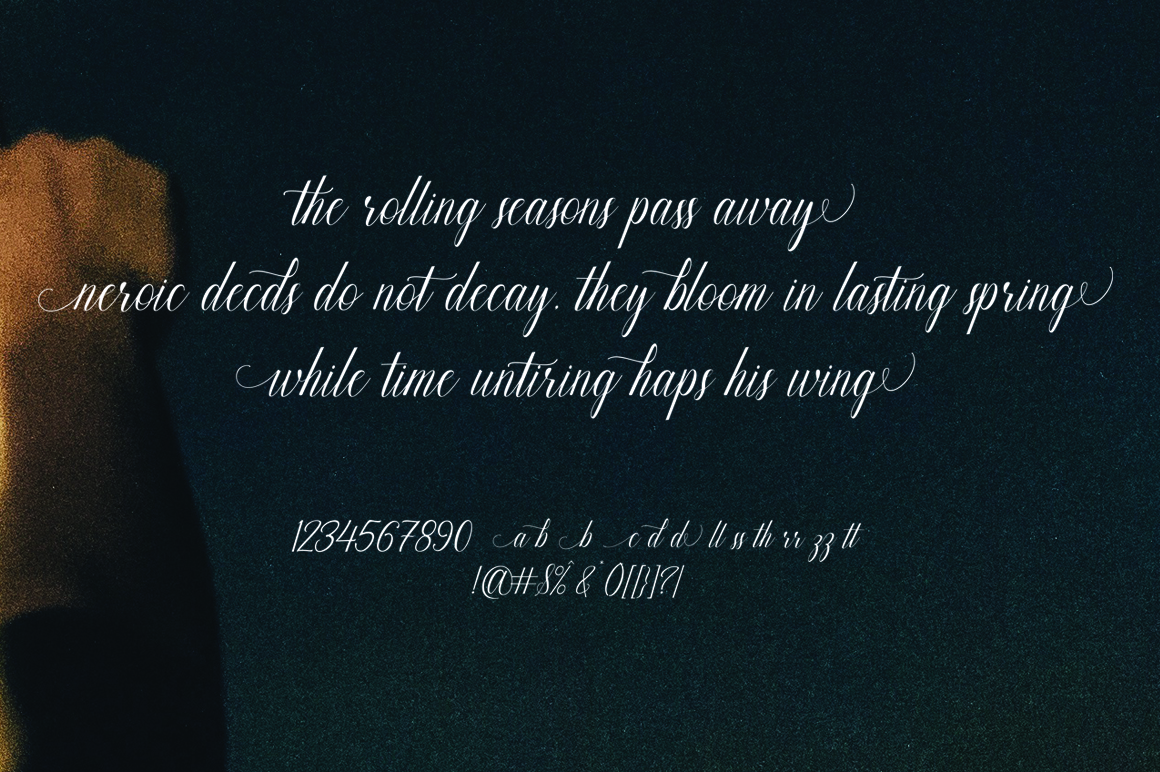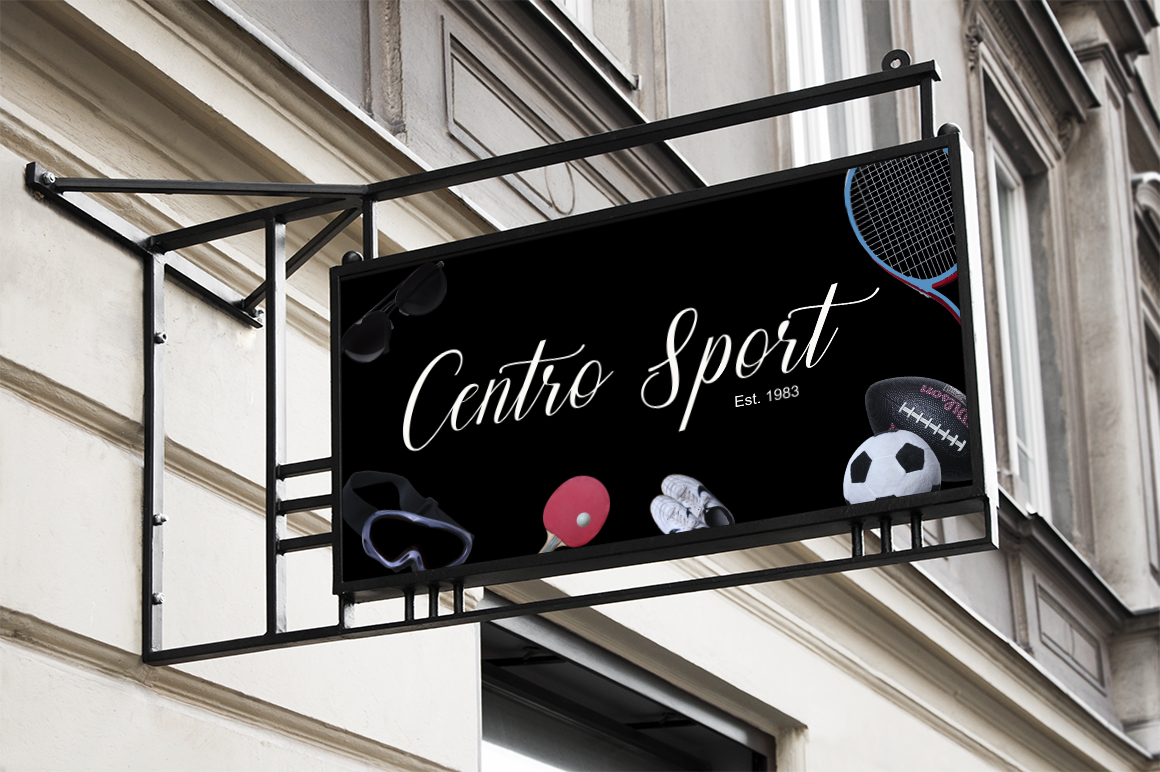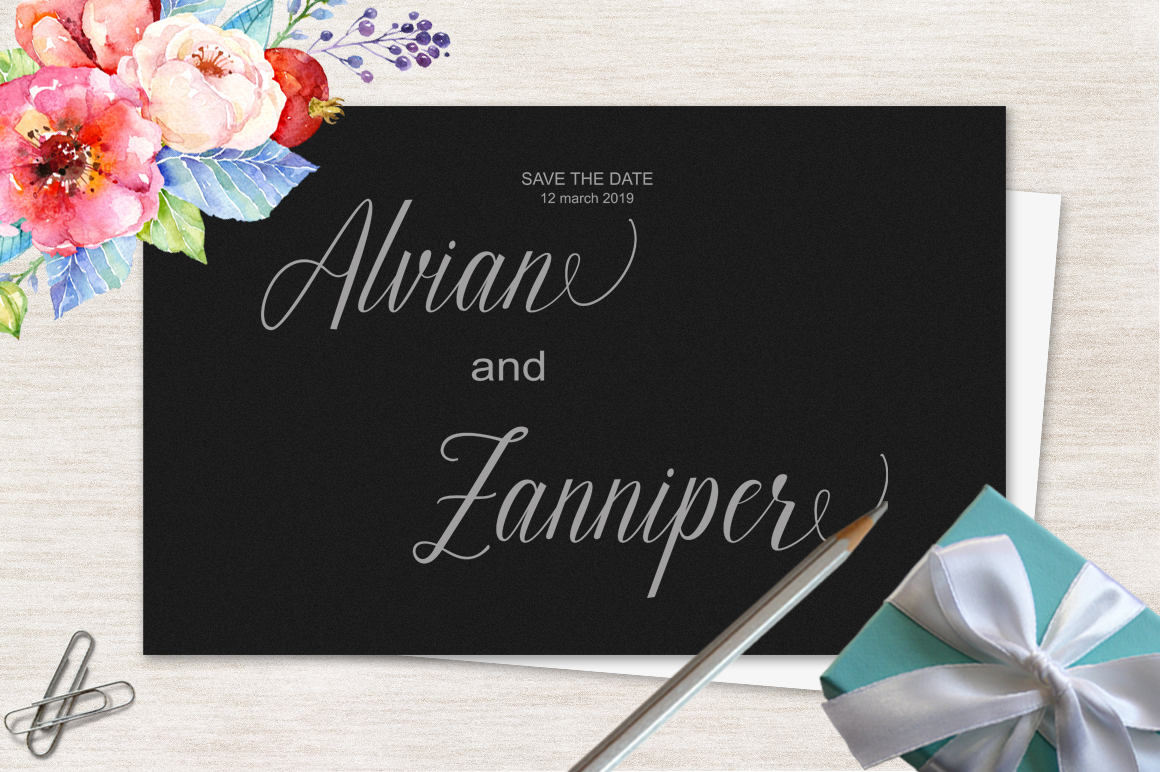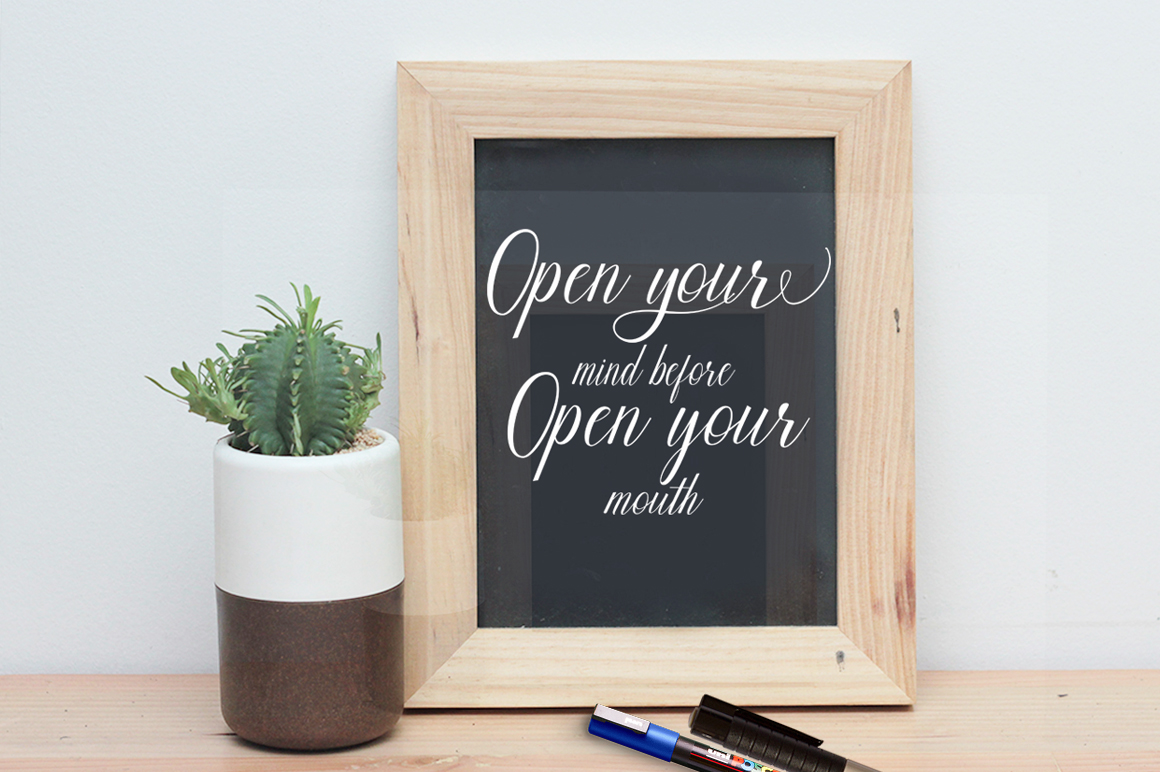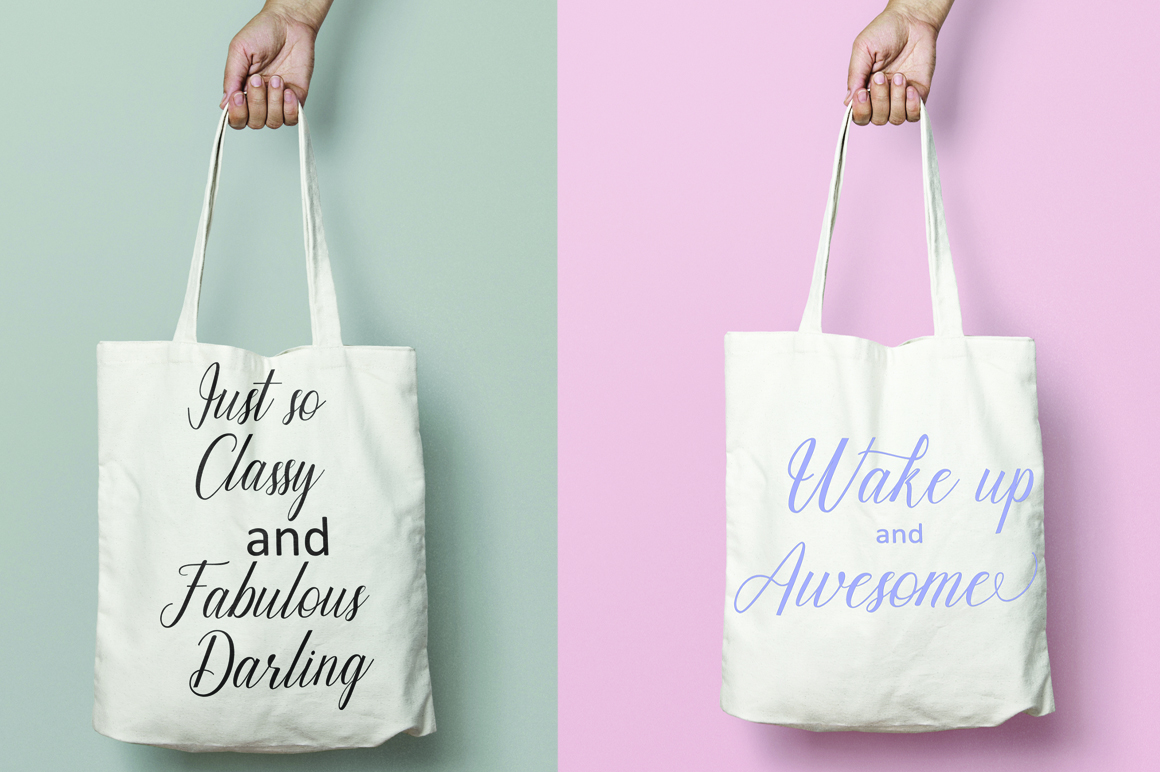
Introducing Balithya Font: Elevate Your Designs with Elegance and Sophistication
In the world of typography, a well-crafted font can make all the difference in elevating your design to the next level. For designers and crafters seeking to infuse their projects with a touch of elegance and romance, Balithya Font is an exquisite choice. This stunning script font, born from the art of calligraphy, brings beautiful waves and flows to your creative endeavors, making it perfect for those who aim to create unique and captivating designs.
The Beauty of Balithya: A Calligraphic Masterpiece
Balithya Font is an elegant and refined script font that has been meticulously crafted through the art of calligraphy. Its creation involved a deep understanding of the fluid movements and expressive strokes that define calligraphic writing. As a result, Balithya boasts beautiful waves and flows that lend a sense of dynamism and grace to any project it is used in. Whether you’re working on a romantic invitation, a branding project, or any other creative endeavor, Balithya’s calligraphic charm is sure to leave a lasting impression.
Versatility at Its Best: Tons of Alternates and Swashes
One of the standout features of Balithya Font is its incredible versatility. The font comes with tons of alternates and swashes, allowing designers to experiment with different styles and variations. This extensive range of options means that you can tailor your text to fit the specific mood and aesthetic of your project. Whether you’re looking for a more formal and sophisticated look or something playful and whimsical, Balithya’s alternates and swashes provide the flexibility to achieve your desired outcome.
Ideal for Romantic and Creative Projects
Balithya Font is particularly well-suited for projects that require a touch of romance and elegance. Its beautiful script and flowing lines evoke a sense of luxury and refinement, making it an ideal choice for:
- Branding and packaging for luxury goods
- Magazine and editorial design
- Web design and digital marketing materials
- Any project that requires a sophisticated and elegant typography
Why Choose Balithya Font?
There are several reasons why Balithya Font stands out from the crowd:
- Unique and Romantic: Balithya’s calligraphic style and beautiful waves and flows make it perfect for creating unique and romantic designs.
- Highly Versatile: With tons of alternates and swashes, Balithya offers endless possibilities for customization and experimentation.
- Elegant and Refined: The font’s elegant and refined appearance makes it suitable for a wide range of projects, from luxury branding to wedding invitations.
Balithya Font is a beautiful and elegant script font that brings a touch of sophistication and romance to any design project. Its calligraphic charm, combined with its versatility and range of alternates and swashes, make it an ideal choice for designers and crafters looking to create unique and captivating designs. Whether you’re working on a wedding invitation, a luxury brand, or any other creative project, Balithya Font is sure to elevate your design to new heights.